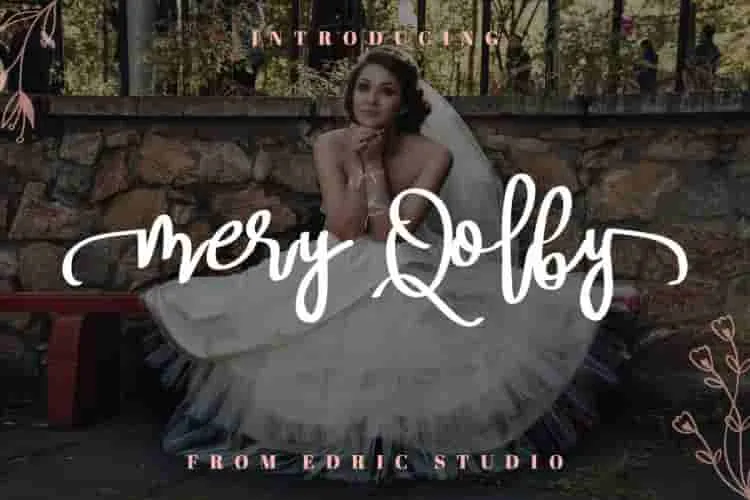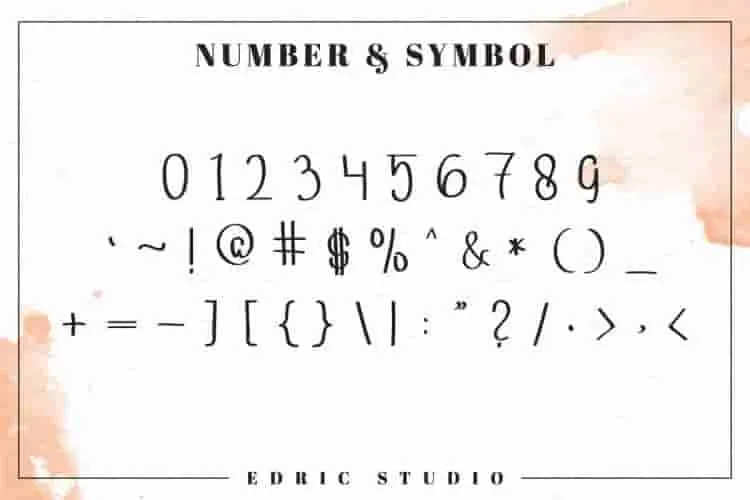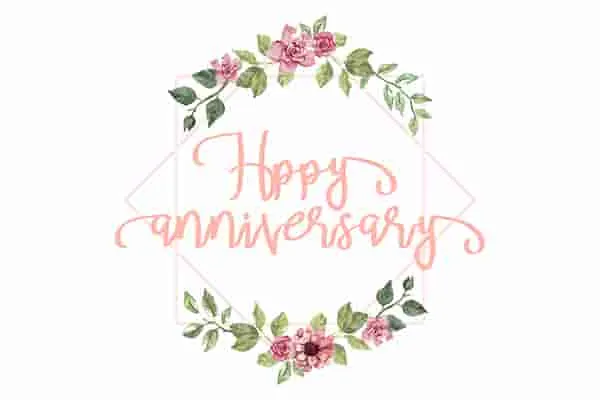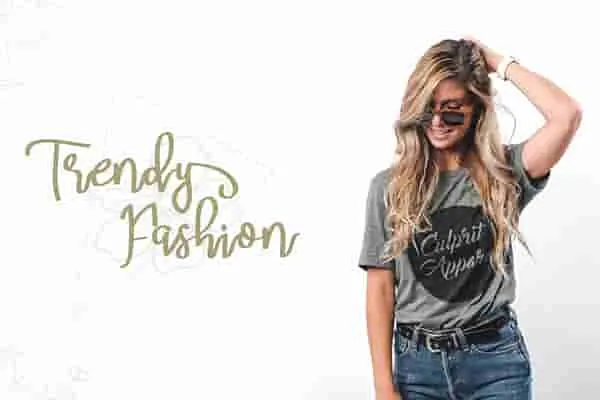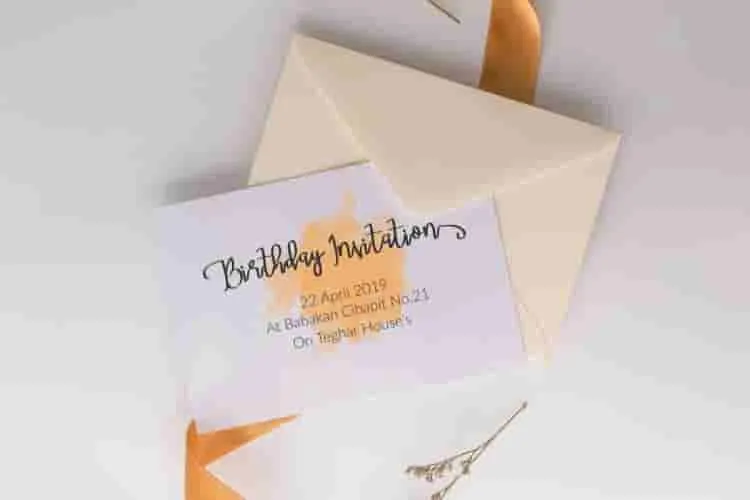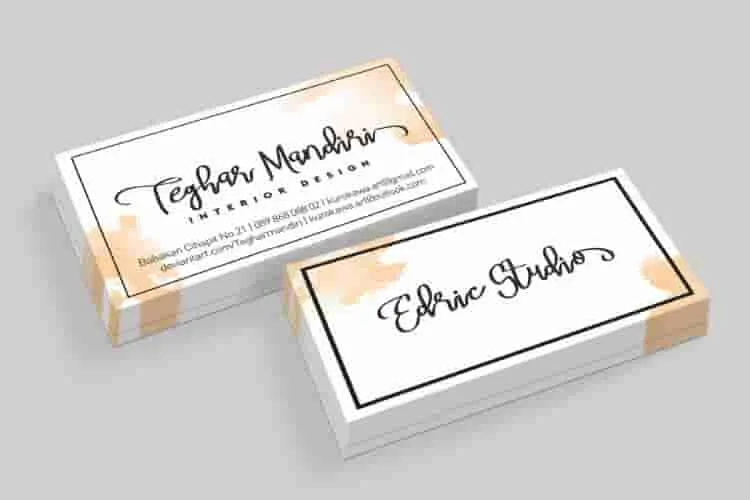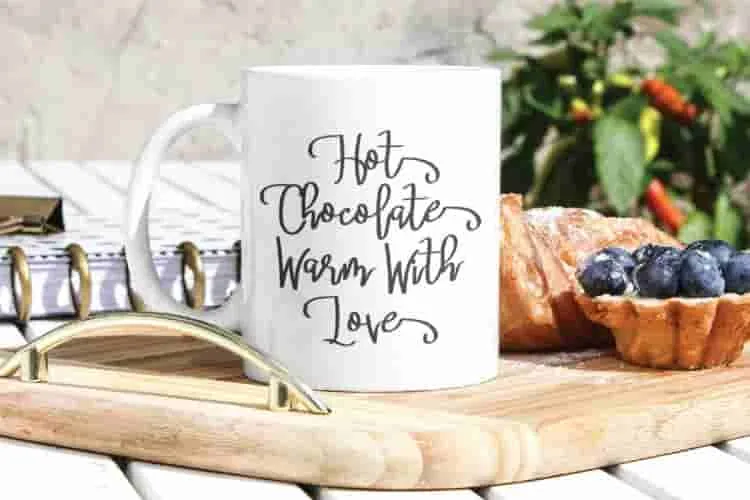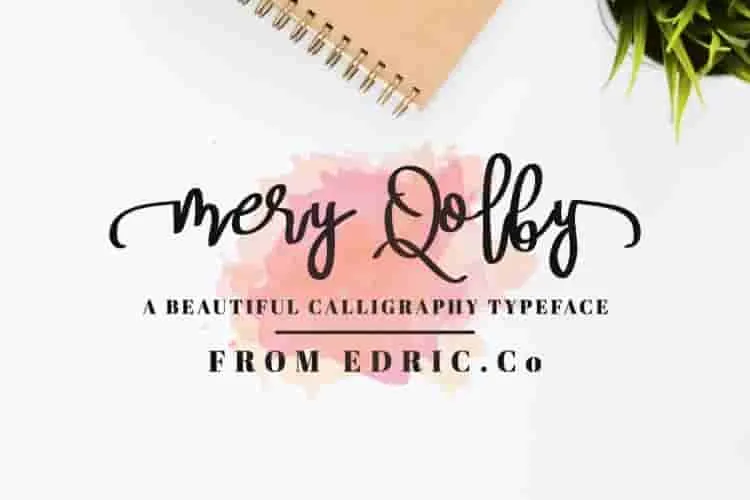
MeryQolby Script Lettering Font
Say hello to MeryQolby Script Lettering Font! MeryQolby Script is a handmade lettering font. it’s great for many cases : logotype, flyer, brochure, letterhead, branding, business card, etc.
Each letter in MeryQolby Script flows naturally with soft, sweeping strokes and balanced spacing, capturing the essence of elegant handwriting. The font features long tails, decorative swashes, and fluid curves that create a graceful rhythm across every word. Its calligraphic charm brings a personal and feminine tone perfect for adding a romantic or artistic feel to your branding. Whether used for stylish logotypes or delicate wedding stationery, MeryQolby’s refined lines and modern handcrafted vibe bring emotion and elegance to your design.
😍Why Designers Love MeryQolby Script:
• Authentic Handwritten Style – Every character feels crafted by hand, adding an organic, natural feel to your projects.
• Elegant & Versatile – Its smooth curves and stylish ligatures are perfect for branding, invitations, social media, and more.
This font doesn’t just look beautiful, it helps you tell your brand story with authenticity and style. Whether you’re designing for a fashion label or writing elegant quotes for social media, MeryQolby Script makes your work unforgettable